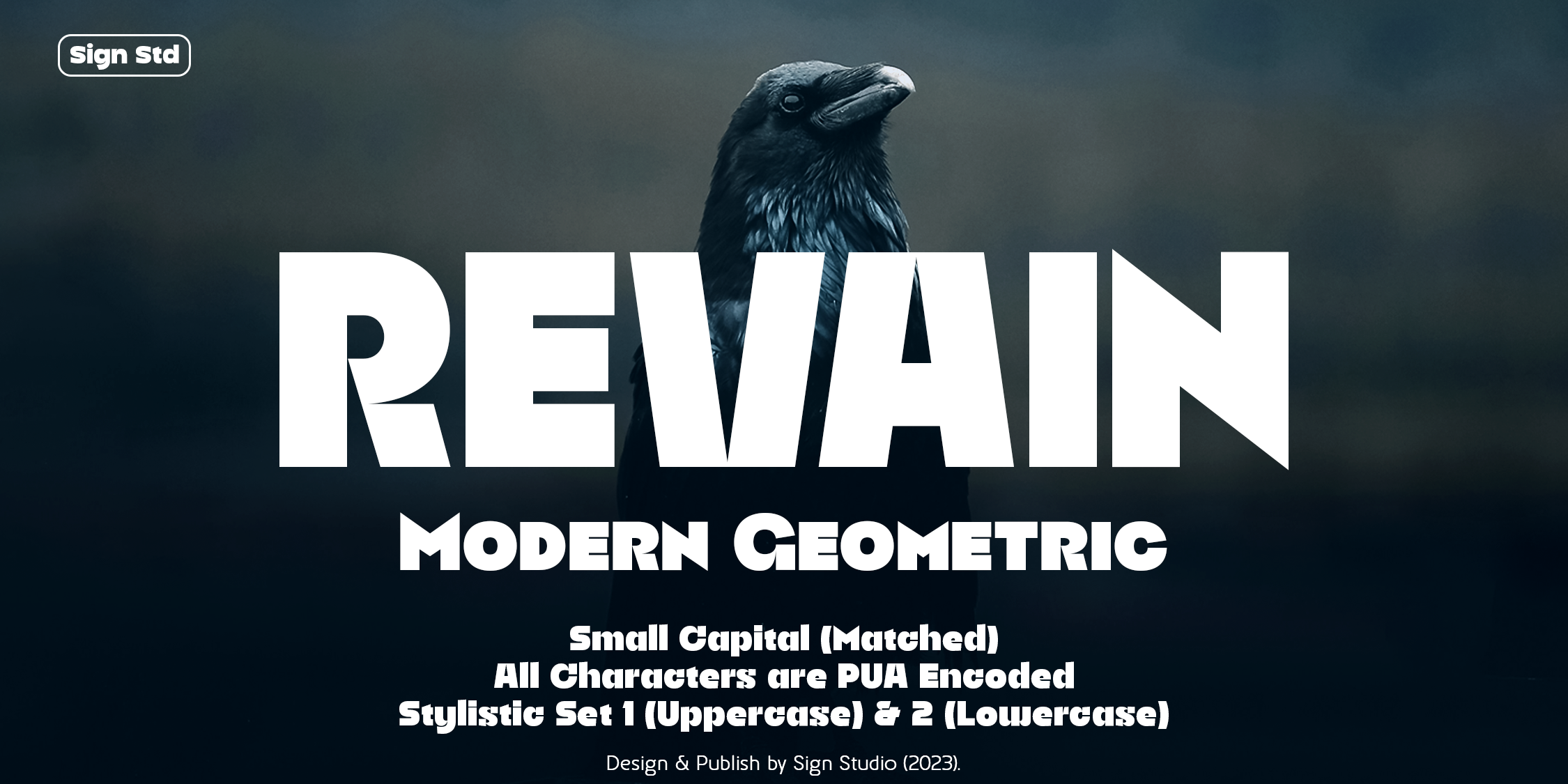
Revain Font is ideal for dynamic design projects including cryptocurrency platforms, fintech company branding, blockchain startup logos, digital trading interfaces, modern financial services, tech conference materials, investment firm presentations, innovative banking solutions, digital wallet applications, and progressive financial technology brands that require cutting-edge typography with technological sophistication.
What makes Revain Font so exciting is its futuristic design approach that perfectly captures the essence of digital innovation and financial technology while maintaining exceptional clarity and professional credibility. This forward-thinking typeface features sleek, angular letterforms with subtle technological details and optimized digital rendering that convey trust, innovation, and technical expertise, making it perfect for brands operating in the rapidly evolving fintech and cryptocurrency sectors.
Revain Font typically comes in comprehensive font families including light, regular, medium, bold, and black weights, along with matching oblique styles, monospace variations, and extended character sets with cryptocurrency symbols, providing designers with complete flexibility to create cohesive digital brand identities and technical documentation.
This innovative Revain Font Free Download offers creative professionals an exceptional tool for projects requiring modern technological aesthetics and financial industry credibility. Whether you're developing cryptocurrency platforms, fintech branding, or digital financial services, this font delivers cutting-edge visual appeal while ensuring clear communication of complex information. The technological design elements and versatile weight range make it particularly valuable for financial technology companies, trading platforms, and digital currency projects seeking to communicate innovation, security, and professional expertise through typography that resonates with tech-savvy audiences and establishes trust in emerging digital markets.